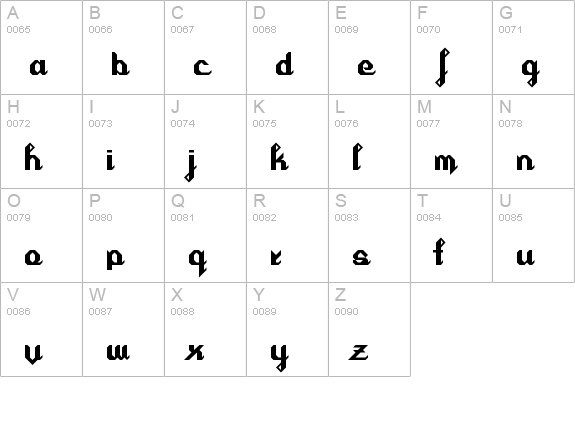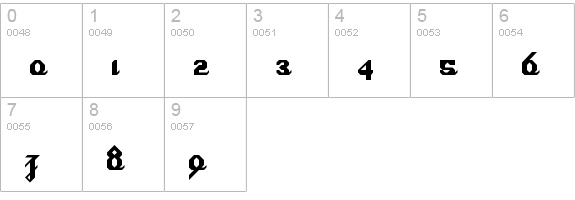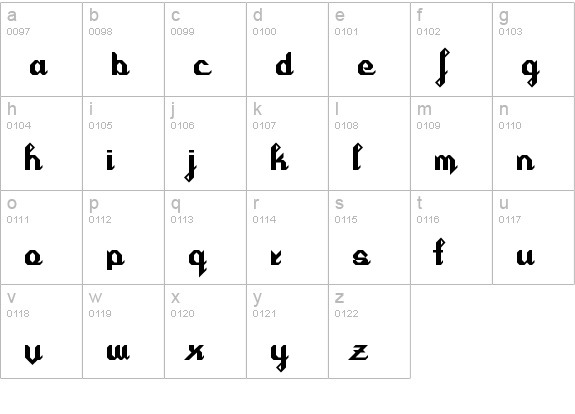
Cursivertex Regular is the standard, neutral variant in the Cursivertex typeface family \xE2\x80\x94 well suited to general body text, paragraphs, and standard typographic work.
Cursivertex Regular font is a stylish and elegant typeface that exudes sophistication and charm. With its flowing curves and graceful letterforms, this font is perfect for adding a touch of class to any project. Whether you're designing a wedding invitation, crafting a logo, or creating a beautiful poster, Cursivertex Regular will elevate your work to the next level. The best part? Cursivertex Regular font is completely free to download at FontsMarket.com. That's right, you can add this stunning font to your collection without spending a dime. Don't miss out on the opportunity to enhance your designs with the beauty of Cursivertex Regular font. Download it today and let your creativity soar!